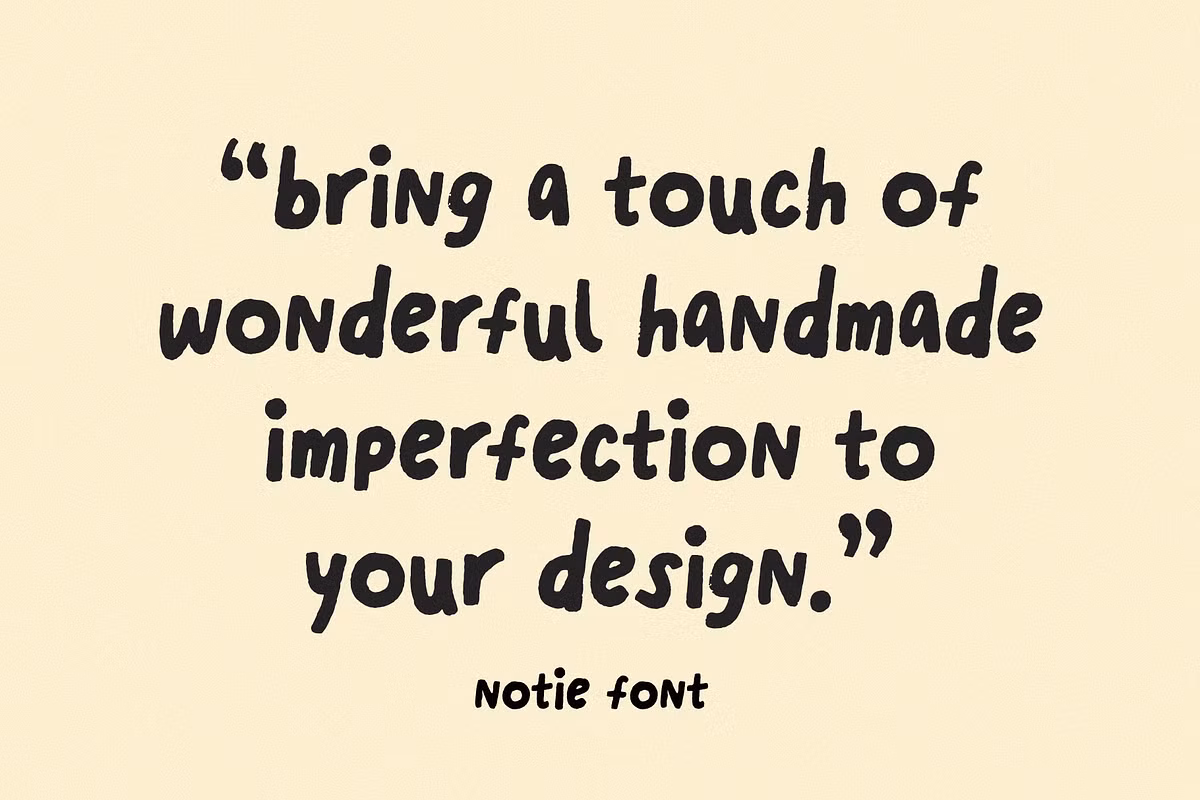
Notie! A Handwriting Font: Versatile Typeface for Creative Projects
Introducing Notie, a handwriting font that you can use in projects. Notie gives a look. Notie works well for notes for display text and, for any design work that needs the touch. I have tried Notie. I see how the letters look like my hand, which makes the design feel more real. When I write a note with Notie the letters feel like I am writing with a pen. You can use Notie for headlines and for logos. Notie is an addition, to the typography toolkit.
Notie looks like handwriting. Notie gives the hand‑written feel, to the design. Notie has an easy style. Notie works for projects. Also for formal projects. Notie adds depth with the look. Notie makes the letters stand out. Notie has curves and strokes that feel like writing. I find Notie for projects and, for branding that wants to feel real. When I use Notie I feel like I am writing by hand.
Notie has alternates. Notie gives more handmade feel. Notie alternates let you mix letters and make a look. Notie improves the design. Gives a custom feel to your letters. If you design a poster, a wedding invitation or a social media graphic Notie adds a touch. Makes your work look better. I use Notie when I want my text to feel handmade.
Character Sets
Notie has a full character set. Notie includes letters, lowercase letters, numbers, symbols and punctuation marks. Notie offers a range of characters that give you all the tools you need to make text layouts that’re interesting and lively.
I like that the inclusion of alternates gives me freedom. I can pick letterforms that fit the context of my project. Different letterforms add a touch that can make my designs more compelling. The versatility of character sets means that whether I am making a headline or a heartfelt quote Notie can meet my needs.
I think the Notie font works well for applications. I think the Notie font is a resource, for designers and creatives. Here are some specific use cases where the Notie font can shine:
- Logos: The handwritten style of Notie adds a touch, to brand logos. The handwritten style of Notie makes brand logos easy to remember and different. The handwritten style of Notie helps brand logos stand out.
- Quotes: Utilize Notie for inspirational quotes on social media or in print materials to create a warm, inviting feel.
- Artistic Projects: If you are making a scrapbook an artwork or a personal blog Notie makes the way you tell a story, with images. Notie helps you share your ideas with pictures and words.
- Branding: The font can be used in branding materials. The font can be mixed with design elements. The font can help build an identity.
- Headlines: Use creative headlines. Headlines get the attention. Stand out on the posters or the web pages.
Use the features of Notie. Pair Notie, with typefaces that add a look and keep the text readable. Here are some pairing ideas:
- Sans-serif Fonts: Pair Notie, with a sans‑serif typeface such, as Montserrat or Open Sans. This mix puts the curves of Notie against the lines of sans‑serif fonts. It keeps the text easy to read.
- Serif Fonts: If you want a feel I pair Notie with a serif font, like Playfair Display. The serif font adds elegance and the serif font matches the style of Notie nicely.
- Simple Script Fonts: If you are looking for a vibe pair Notie with another light script font. I find that Notie and the other font work together and feel playful. Notie does not overwhelm the design.
When I pair fonts I make sure the look fits my project goals. I keep the balance in the fonts. I keep the harmony in the fonts. Let Noties unique character shine.
Notie is a handwriting font that adds a touch to any creative project. Notie has the texture, the set of characters and many ways to use Notie. I use Notie to add character and charm to my work. If you are writing a note designing a logo or making art that talks to your audience Notie offers the flexibility and style you need. Embrace this delightful font and elevate your creative projects to new heights!